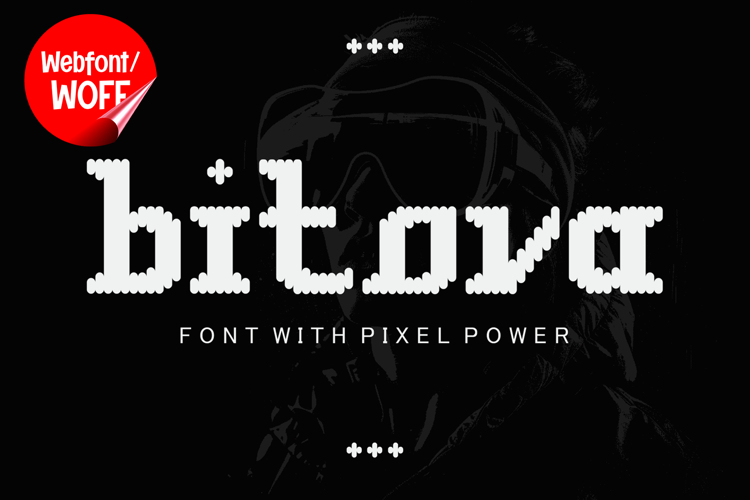
Bitova | Pixel Display Webfont for Retro Digital Websites
Bitova is a display webfont inspired by pixel aesthetics, designed to bring a bold retro digital style into modern website design. With its blocky shapes and sharp edges, this font captures the essence of classic pixel graphics while maintaining clarity and structure for contemporary web use. It is an excellent choice for projects that want to highlight a tech-driven, gaming, or nostalgic visual identity.
Bitova features a full set of uppercase characters designed with a strong pixel-based structure. Each letter is built with clean, geometric blocks that create a distinctive digital look. These uppercase forms are ideal for headlines, banners, hero sections, and featured content where a bold visual impact is needed. The pixel style naturally draws attention and gives a unique identity to any layout.
In addition to letters, Bitova includes numbers and punctuation, making it highly versatile for various types of website content. It can be used for game interfaces, tech product displays, pricing sections, navigation menus, and promotional elements. Every character maintains the same pixel consistency, ensuring a cohesive and unified design throughout the website.
With multilingual support, Bitova includes a wide range of accented characters, allowing content to be displayed across different languages while preserving the pixel style. This makes it suitable for international platforms, gaming communities, and global digital brands that require consistent typography.
The pixel display style of Bitova makes it especially effective for gaming websites, retro-themed designs, tech startups, digital portfolios, and creative platforms. Its nostalgic appearance connects with classic arcade and early computer visuals while still feeling relevant in modern design contexts. This combination of old-school inspiration and modern usability makes it stand out in competitive digital spaces.
Despite its pixel-based structure, Bitova is designed with readability in mind. The spacing and proportions are carefully arranged to ensure that text remains clear and easy to recognize, especially in display sizes. This makes it effective for bold headings and short content elements where clarity is essential.
Bitova is a display webfont that blends retro pixel style with modern web performance. Its strong geometric forms and digital aesthetic create a distinctive and memorable look, making it a powerful tool for website design. For projects that require a bold, tech-inspired, and nostalgic visual identity, Bitova delivers a clean and impactful typographic solution.